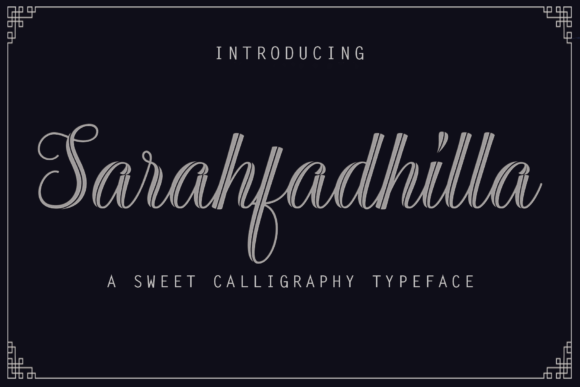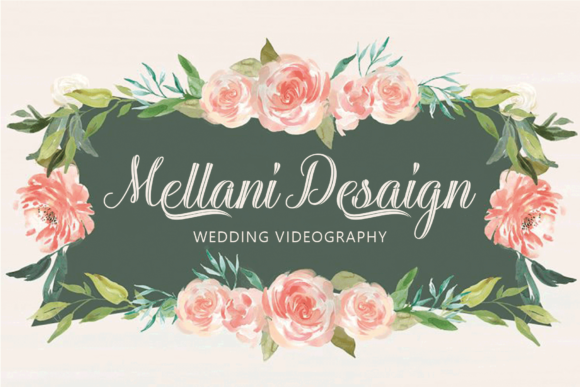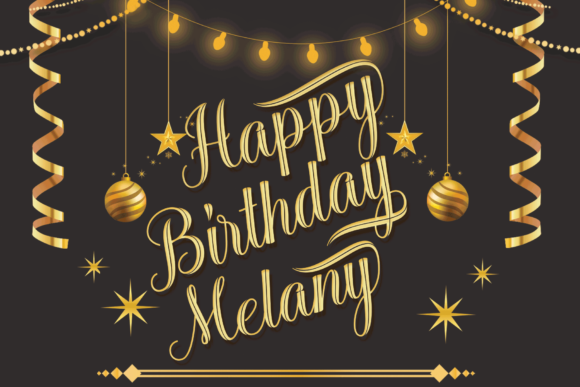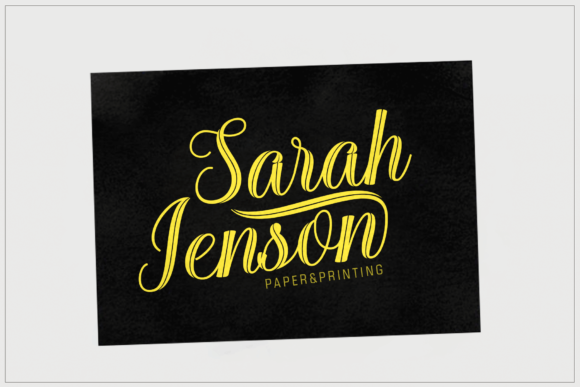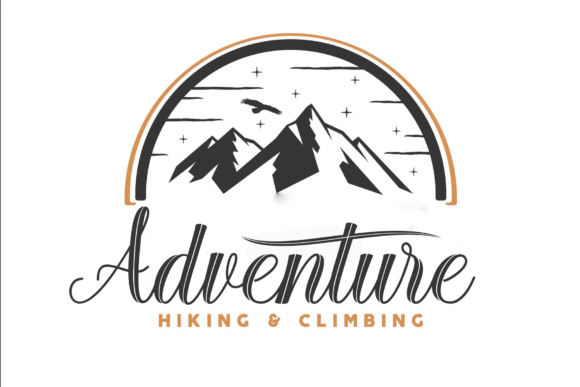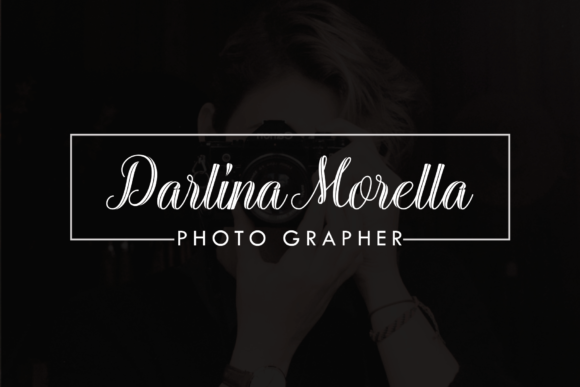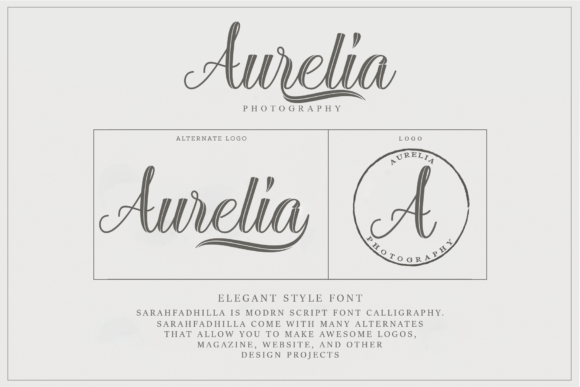
Sarahfadhilla Font
Sarahfadhilla Font Poster 1
About Sarahfadhilla Font
Sarahfadhilla is a sweet, soft hand-lettered script font. This is a beautiful combination of timeless elegance and authentic calligraphy. It features an incredibly classic style, while still keeping a friendly feel. Fall in love with its authentic feel and use it to create gorgeous wedding invitations, beautiful stationary art, eye-catching social media posts, and cute greeting cards.